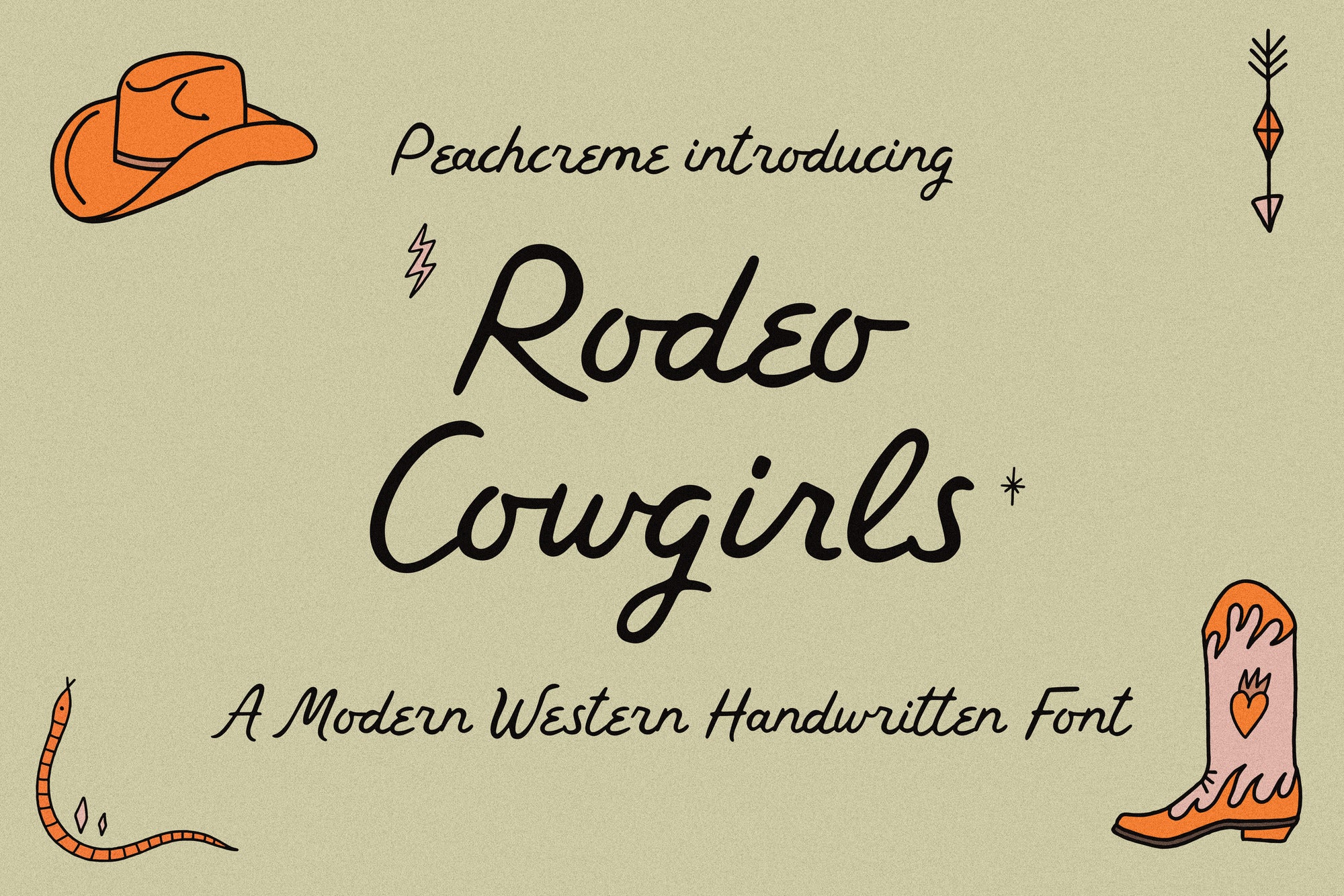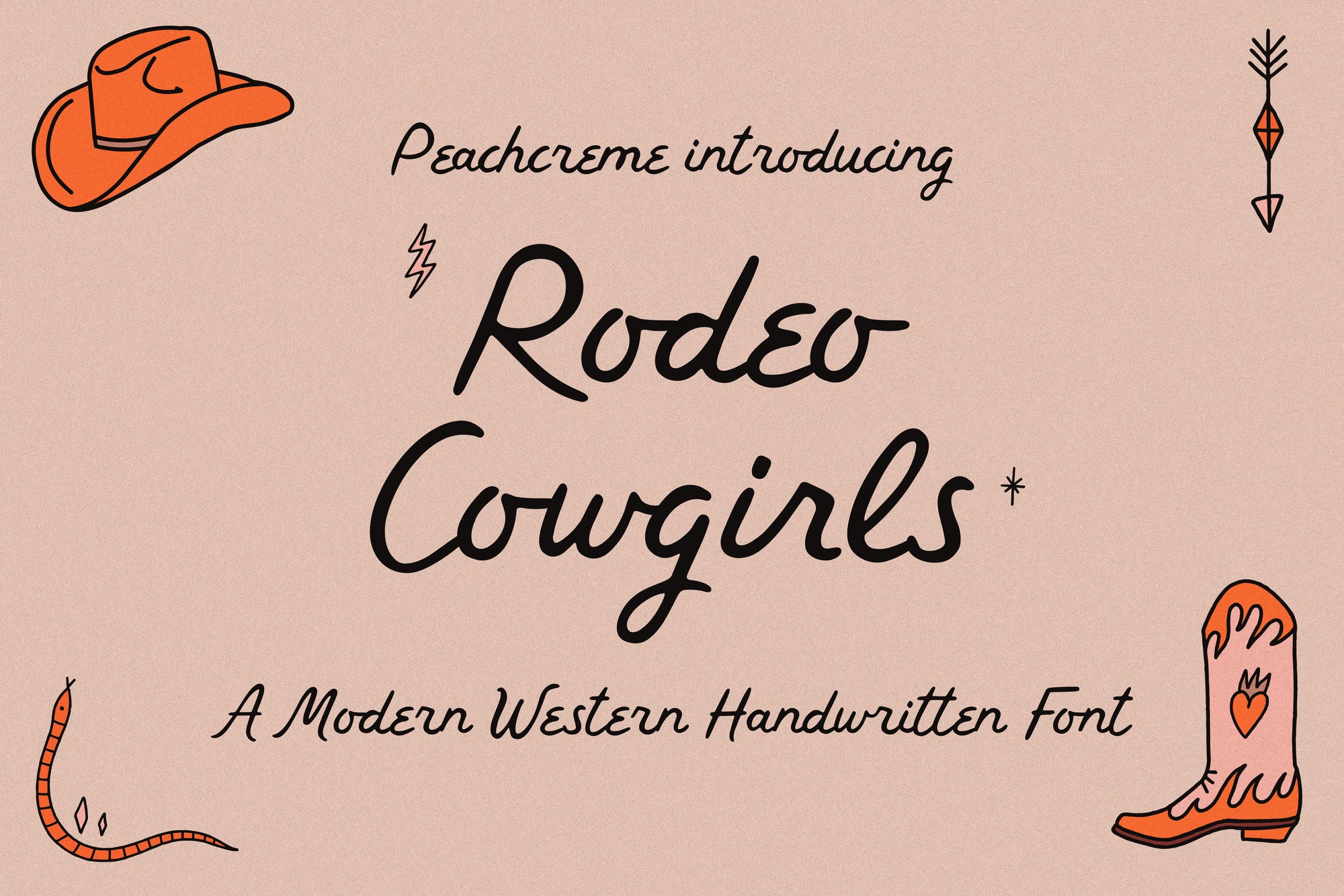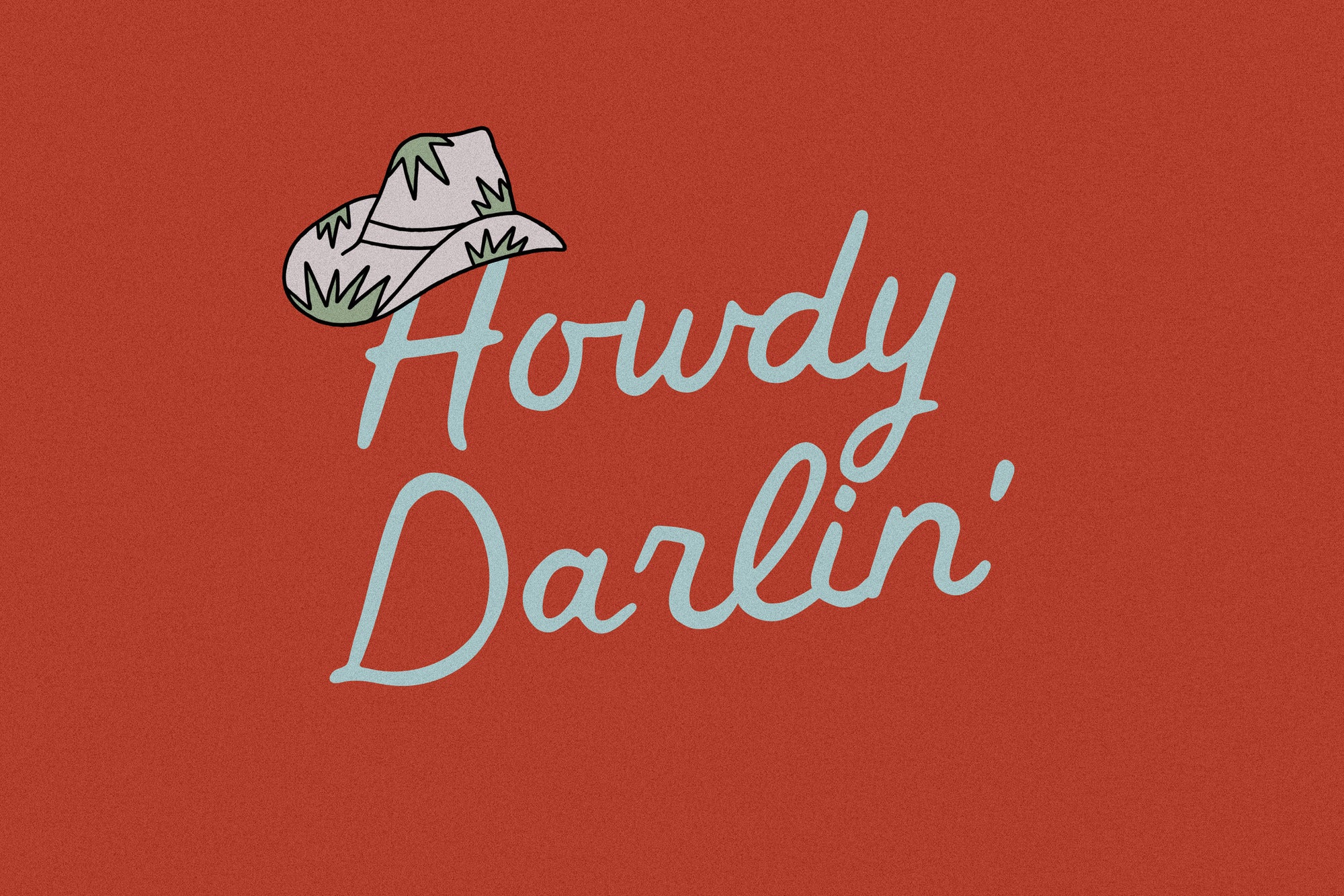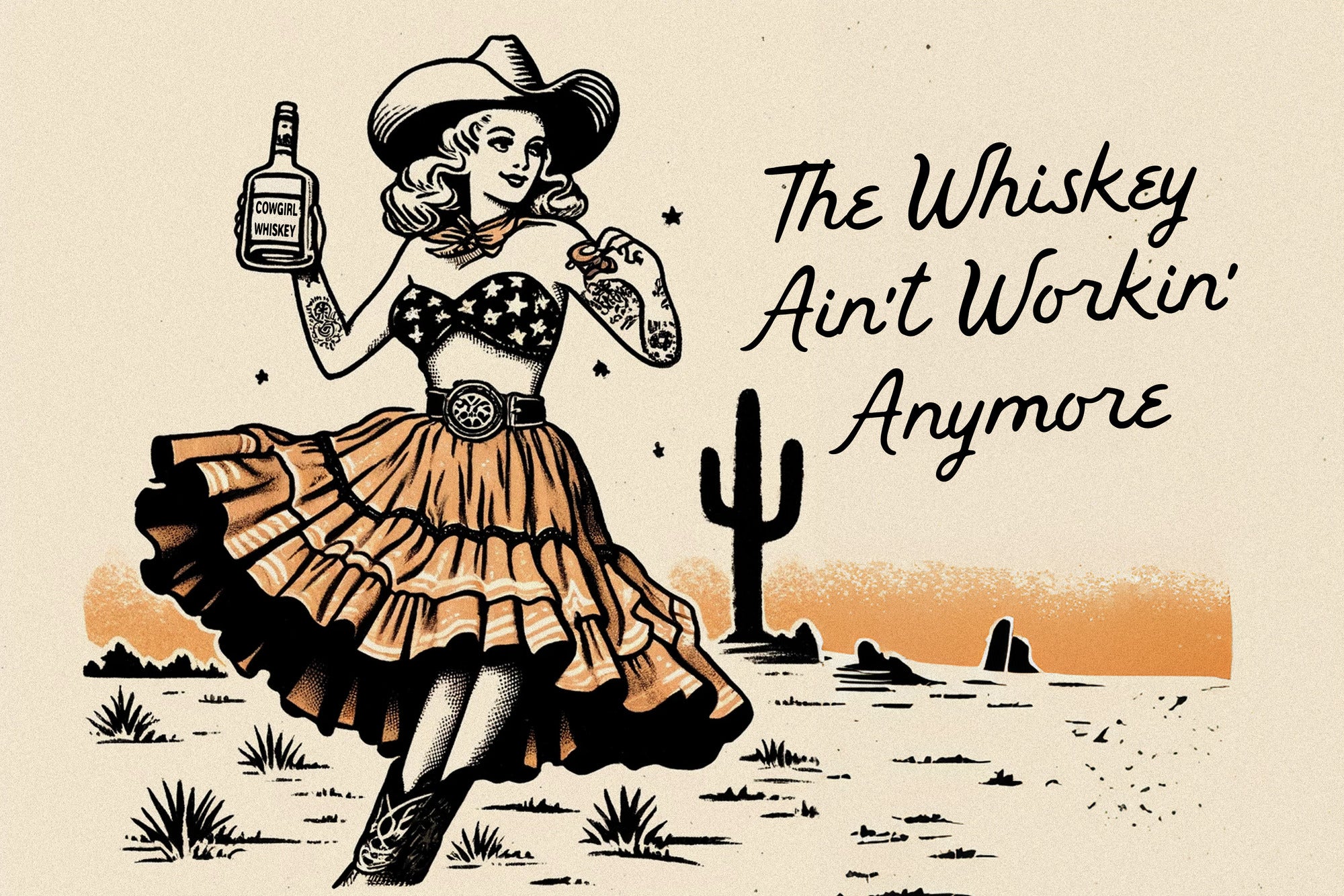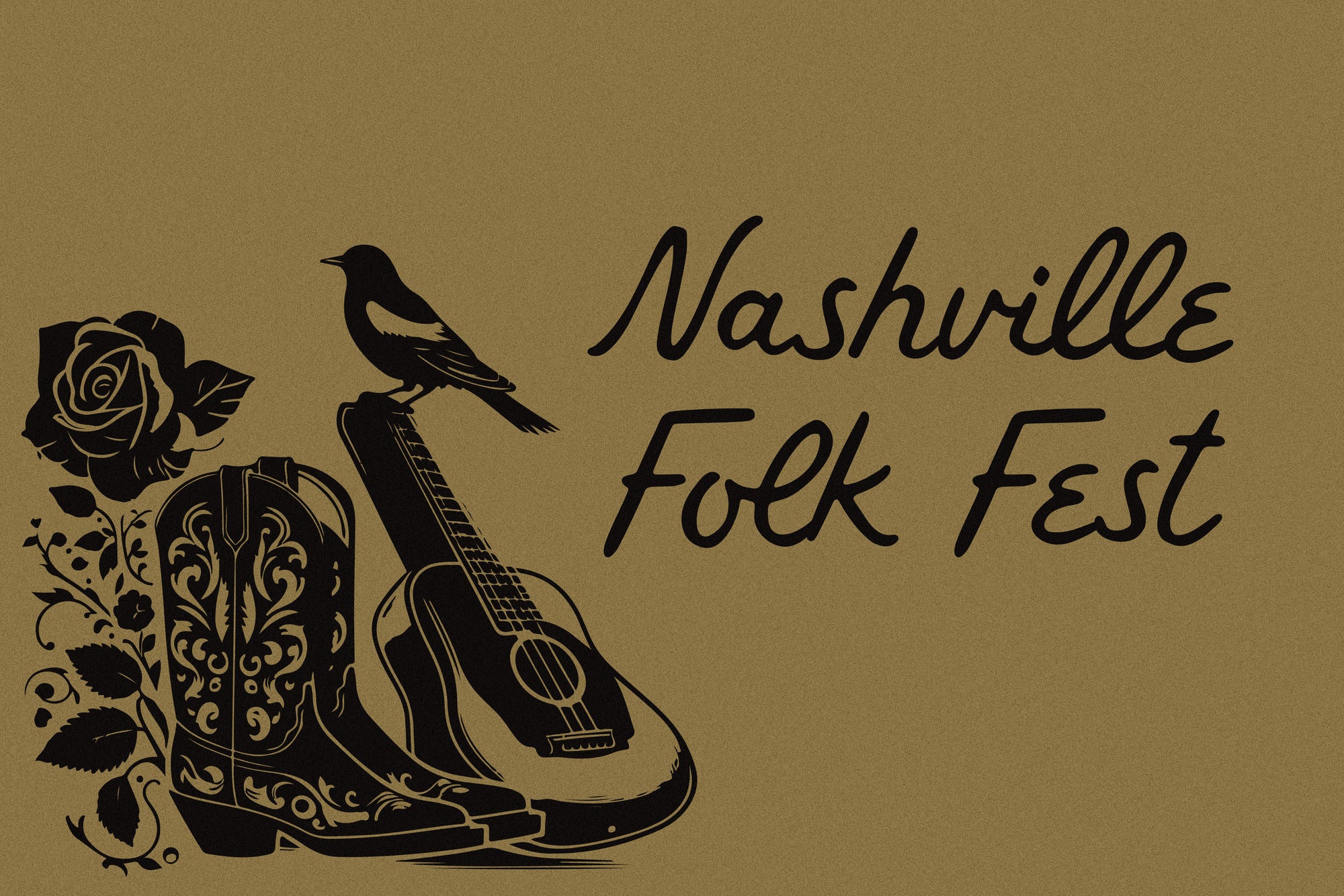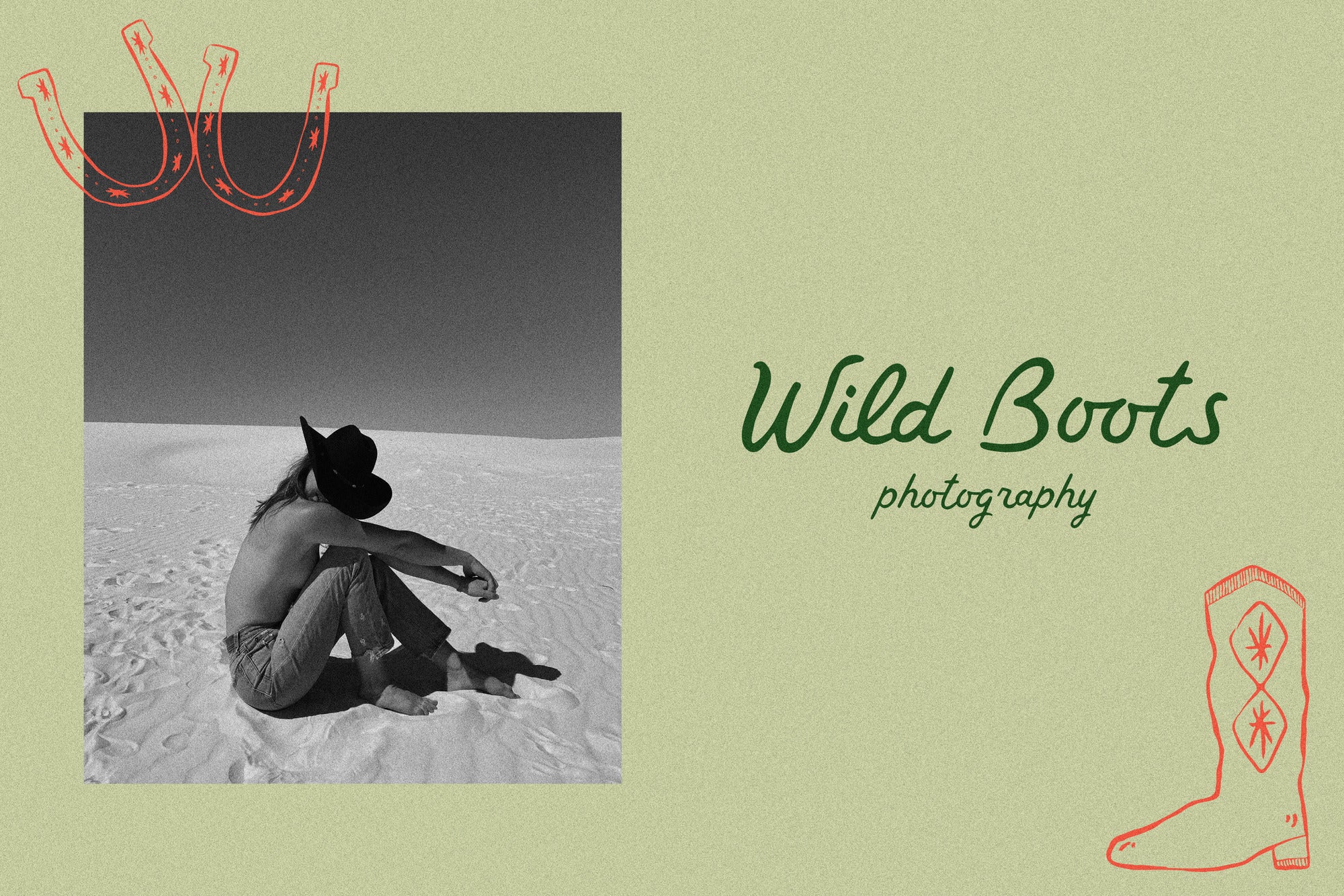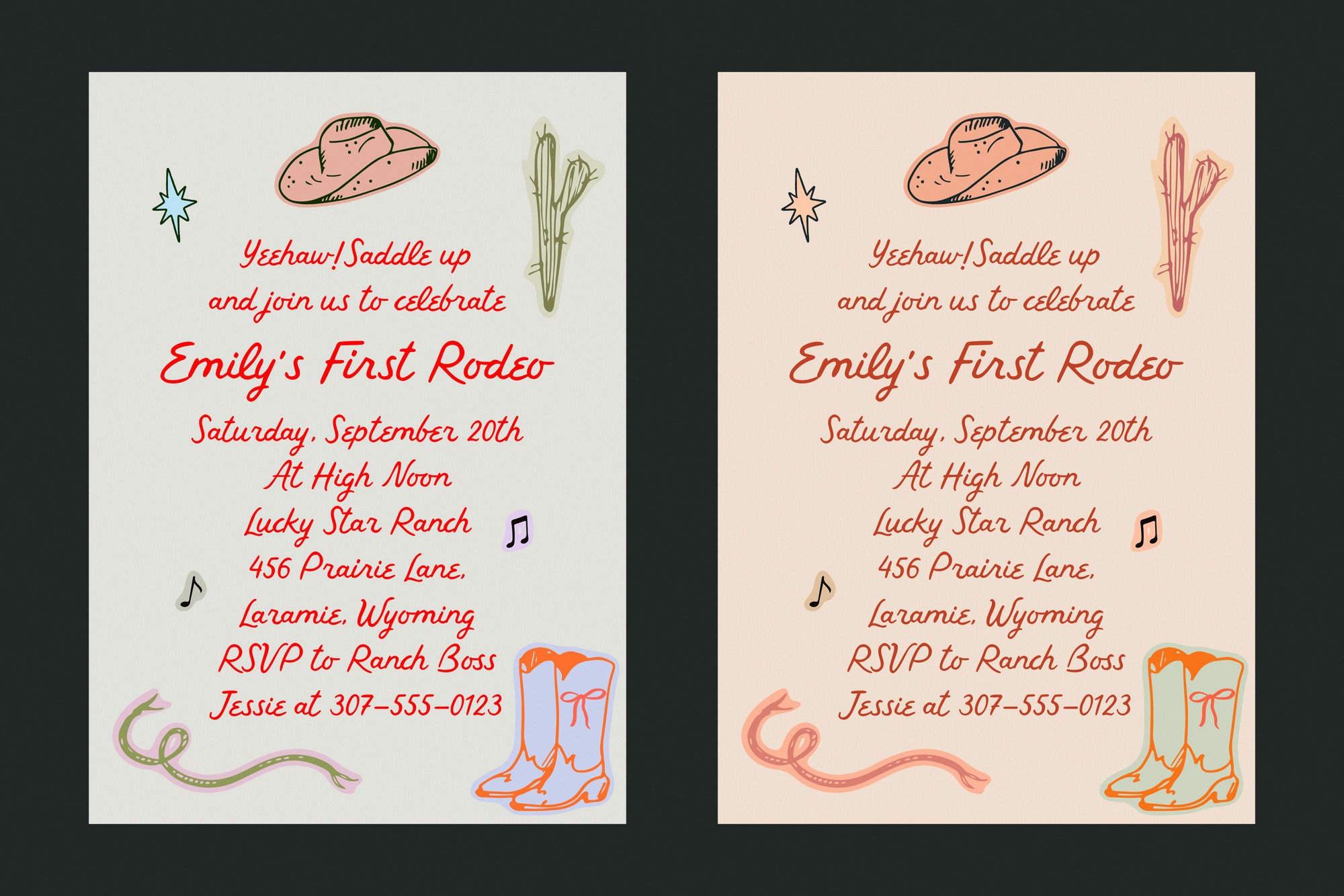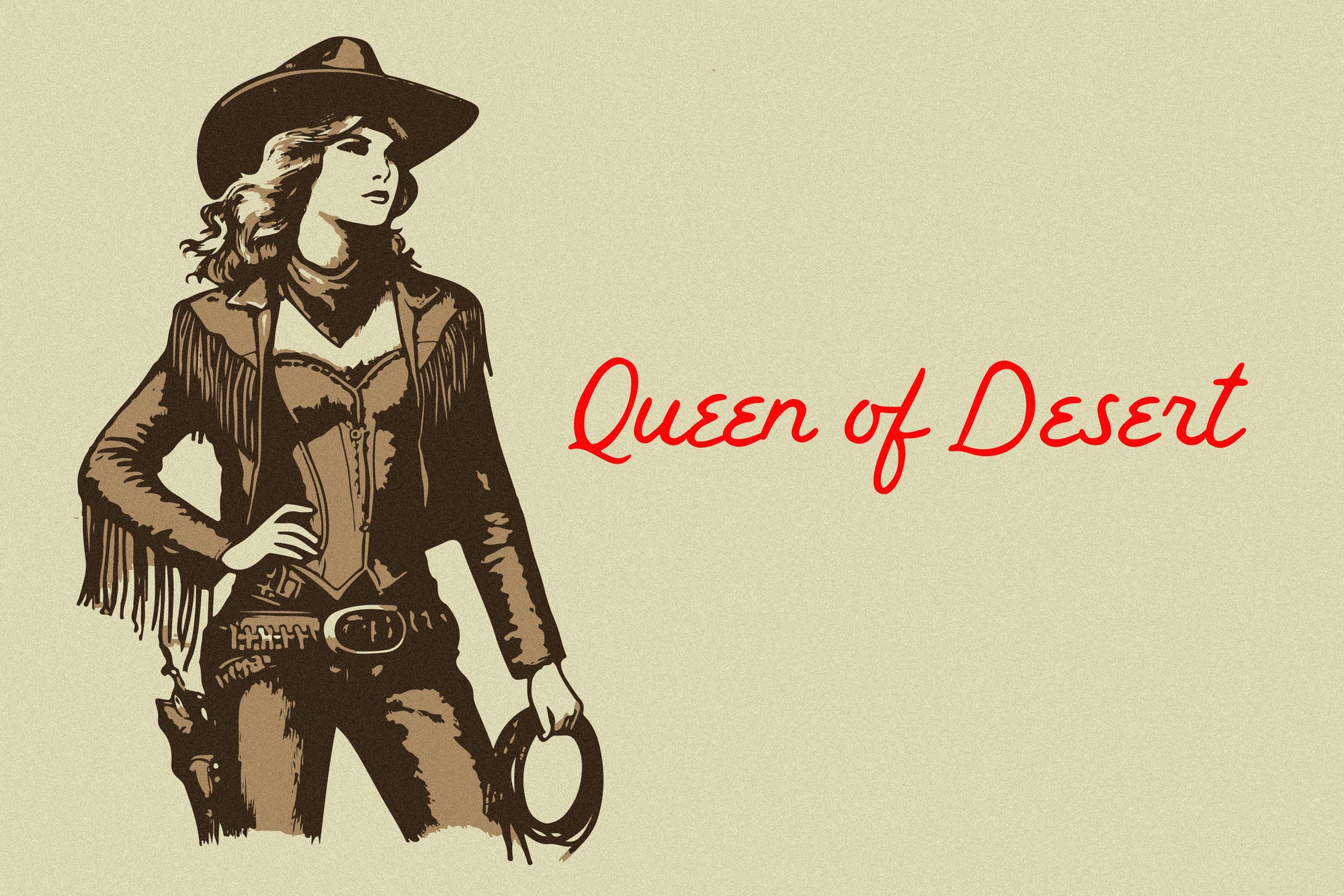
Rodeo Cowgirls // Western Font
"Rodeo Cowgirls" brings a contemporary twist to traditional Western lettering. Crafted with the charm of vintage hand lettering, "Rodeo Cowgirls" offers a fresh, slightly carefree vibe that captures the essence of real handwriting. Each character is uniquely shaped, ensuring that no two letters are exactly alike. This font blends the irregularity of spontaneous script with a modern aesthetic.